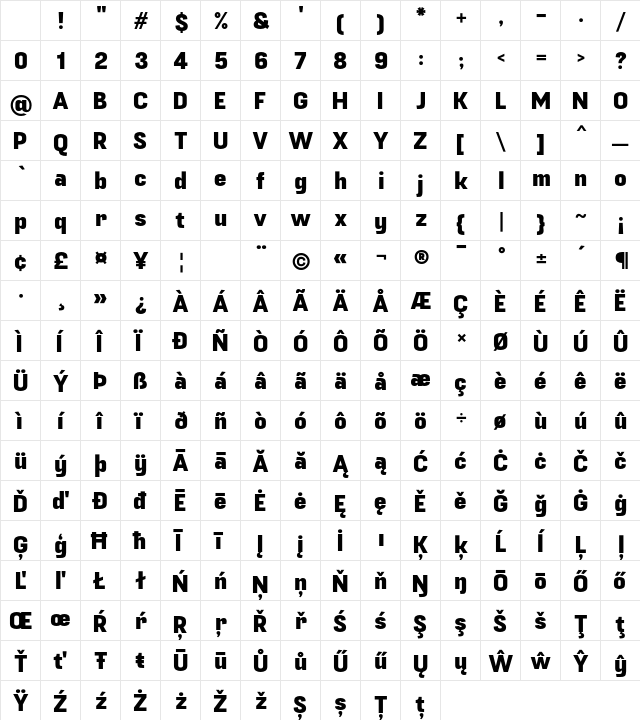
Fuji is a composed and adaptable typeface that performs quietly and consistently across a wide range of design contexts. Its bold stroke weight gives it real presence on the page.